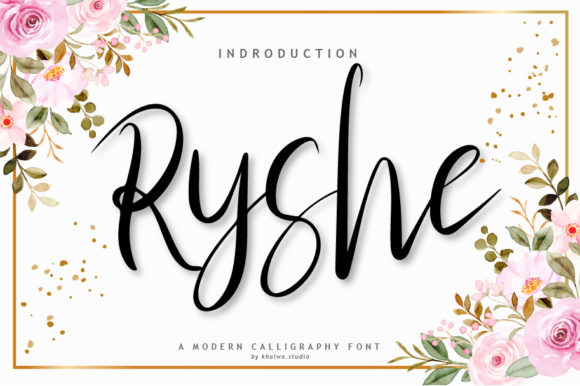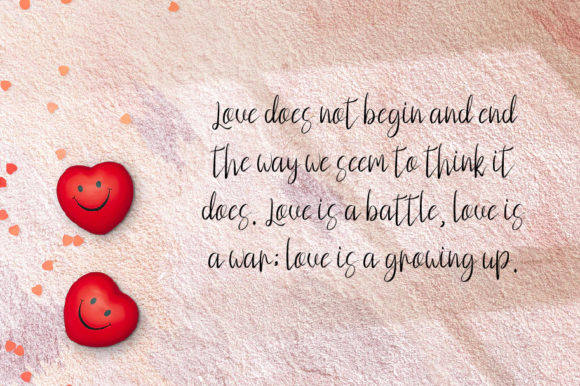
About Ryshe Font
Ryshe Script is a lovely and timeless handwritten font. It is the best choice for creating eye catching logos, branding and quotes. Every letter has a unique and beautiful touch, which will make your designs come alive!